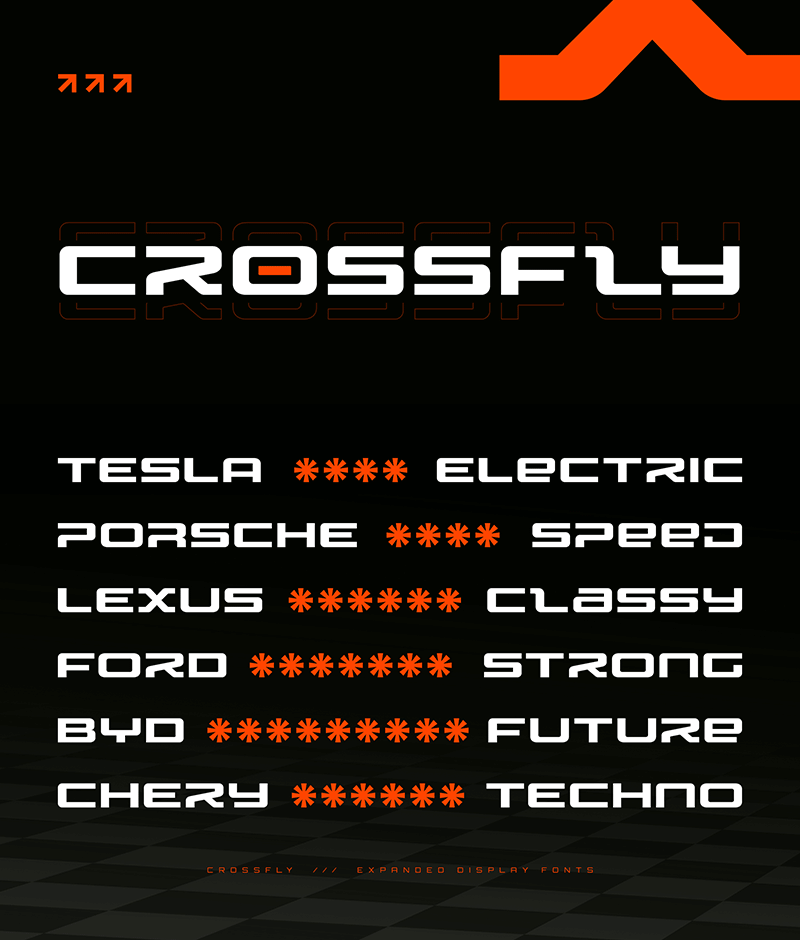
Font name: | Crossfly |
Author: | Namara Creative |
An exciting typeface that captures the spirit of technology, speed, and movements. NOTE : - This font is PERSONAL USE ONLY, NO COMMERCIAL USED ALLOWED. - Link to purchase Full Version and Commercial license : https://onedsgn.com/product/crossfly-expanded-display-fonts/ |